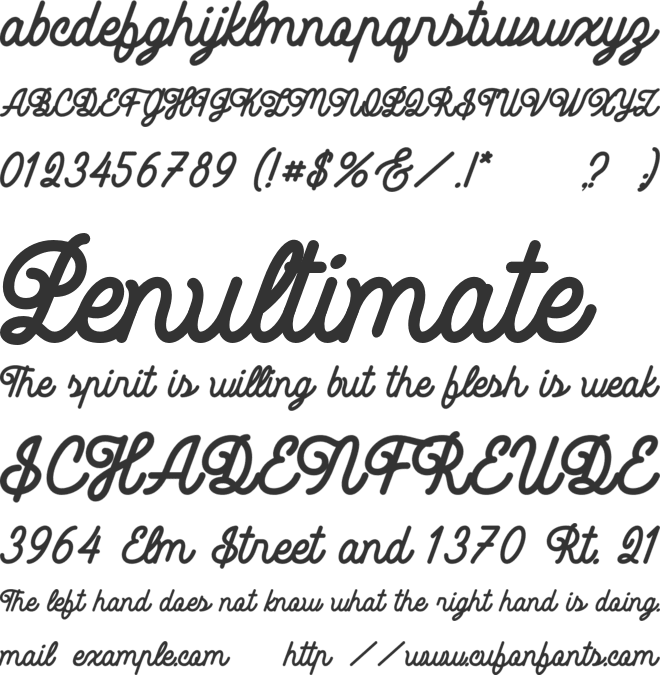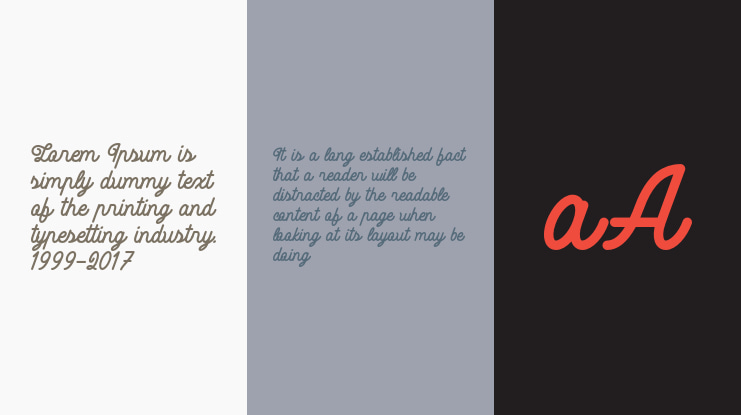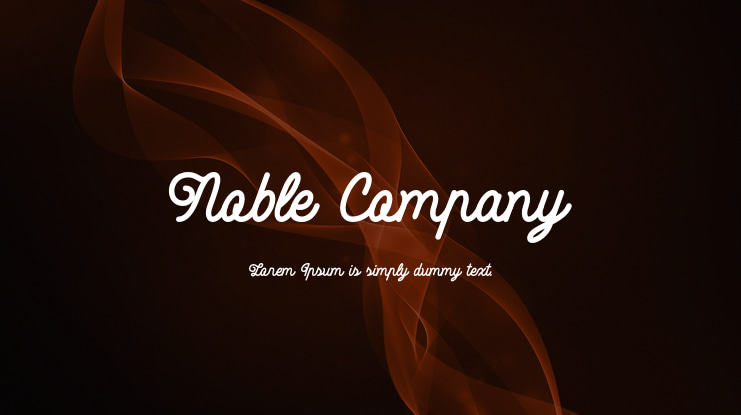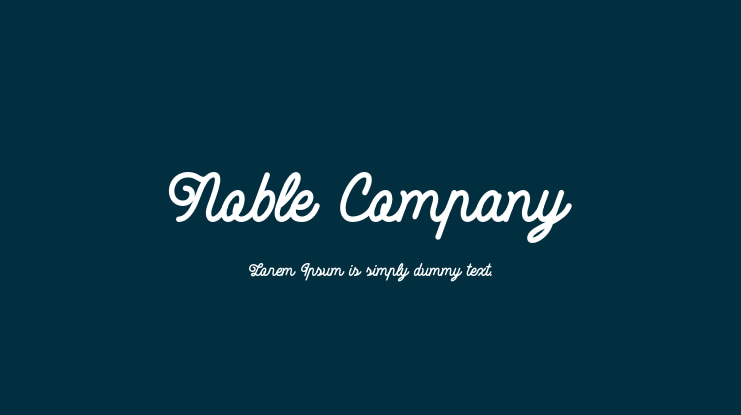
Noble Company Font Family
Noble Company, from the 1871 Project, is a vintage-inspired hand-drawn mono-line script. It comes with 2 styles, rough & regular. This font will give your next project that unique hand-drawn look you’ve been searching for.